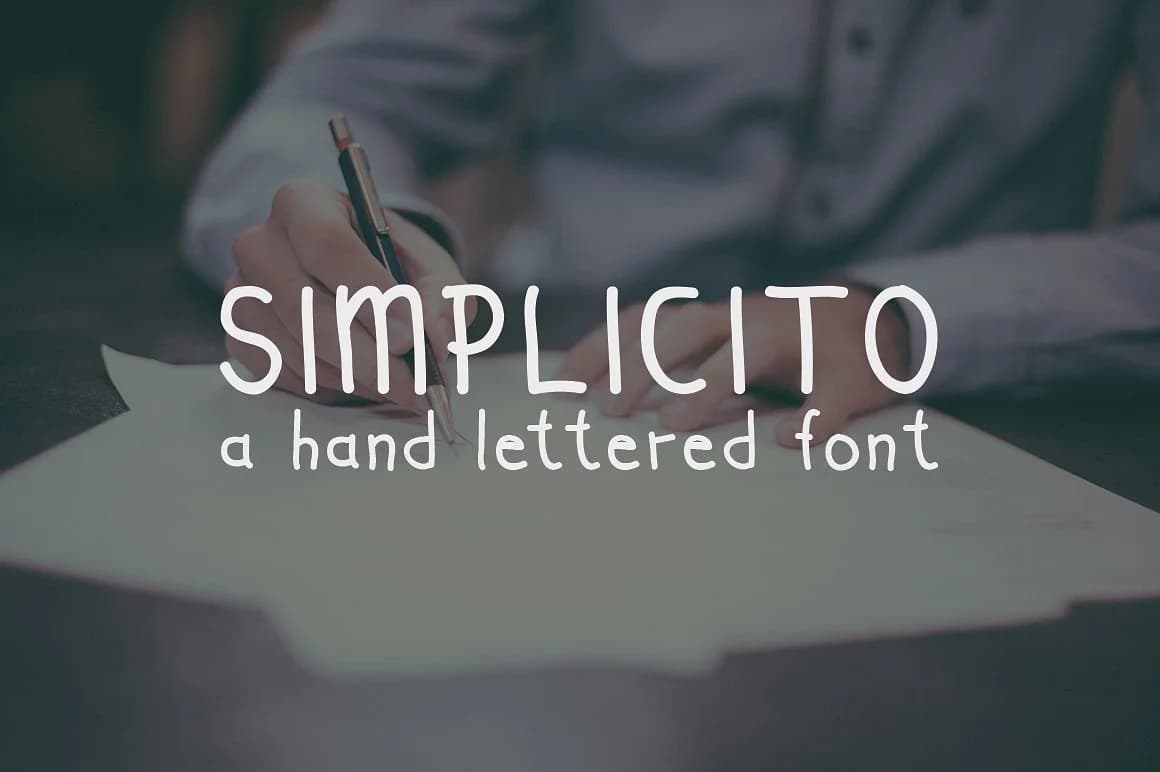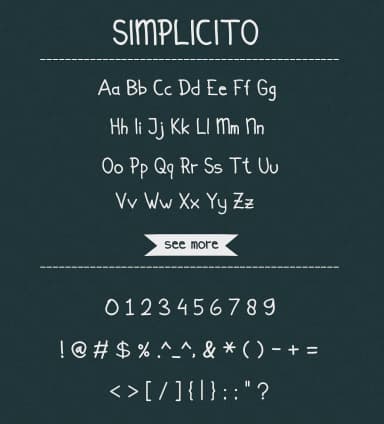
1 / 4About Simplicito Font
Simplicito by josgandos is a contemporary script font built on the systematic proportions of handwritten letterforms. This typeface captures the warmth of personal handwriting while maintaining readable consistency throughout, drawing from the natural flow of pen work. The font brings an intimate, human touch to typography that feels both deliberately crafted and organically authentic.
This script font works beautifully for wedding invitation suites, where its natural flow and elegant letterforms complement formal designs and ceremony details. It's equally suited for personalized greeting cards and birth announcement sets, where authentic character and individual warmth matter most to recipients. The legible, flowing letterforms also make it an excellent choice for recipe cards and hand-lettered journal covers, lending genuine personality to everyday stationery projects. Beyond stationery, this font shines in branding contexts, particularly for boutique small-business packaging and custom hand-lettered signage that demands a human, approachable feel.
Simplicito offers the charm and character of genuine handwriting without sacrificing clarity or legibility, making it versatile across both digital and print applications. The carefully proportioned letterforms work well at various sizes, whether in headlines or body text. Whether you're designing artisanal product packaging, creating invitations for meaningful life events, or developing custom signage with personality, this script brings intentional, understated elegance to your work. Explore Simplicito on Creative Fabrica and discover how authentic handwritten character can transform your next creative project.
Simplicito Font is a script font that shines as a display or heading face. Pair it with a clean sans-serif or serif font for body text β the contrast creates a clear hierarchy while the two styles stay balanced and easy to read.
Simplicito Font
by josgandos